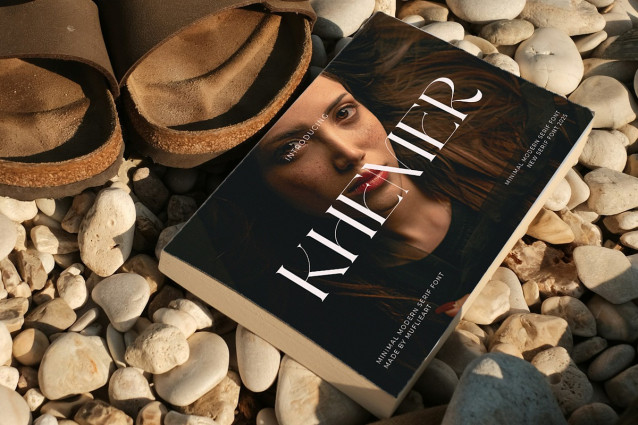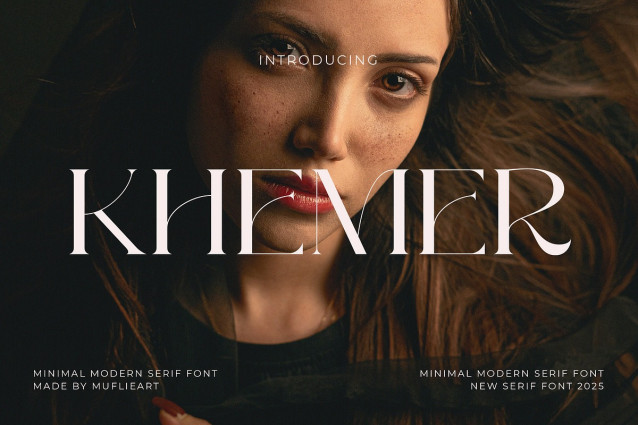
Khemer Font
Khemer Font – Minimal Modern Serif is a modern serif font with an elegant minimalist style. This font is specifically designed to add a clean, professional, and classy touch to any design.
This font comes with full capital letters, numbers, punctuation, and multilingual support, making it highly flexible for use in various international design needs.